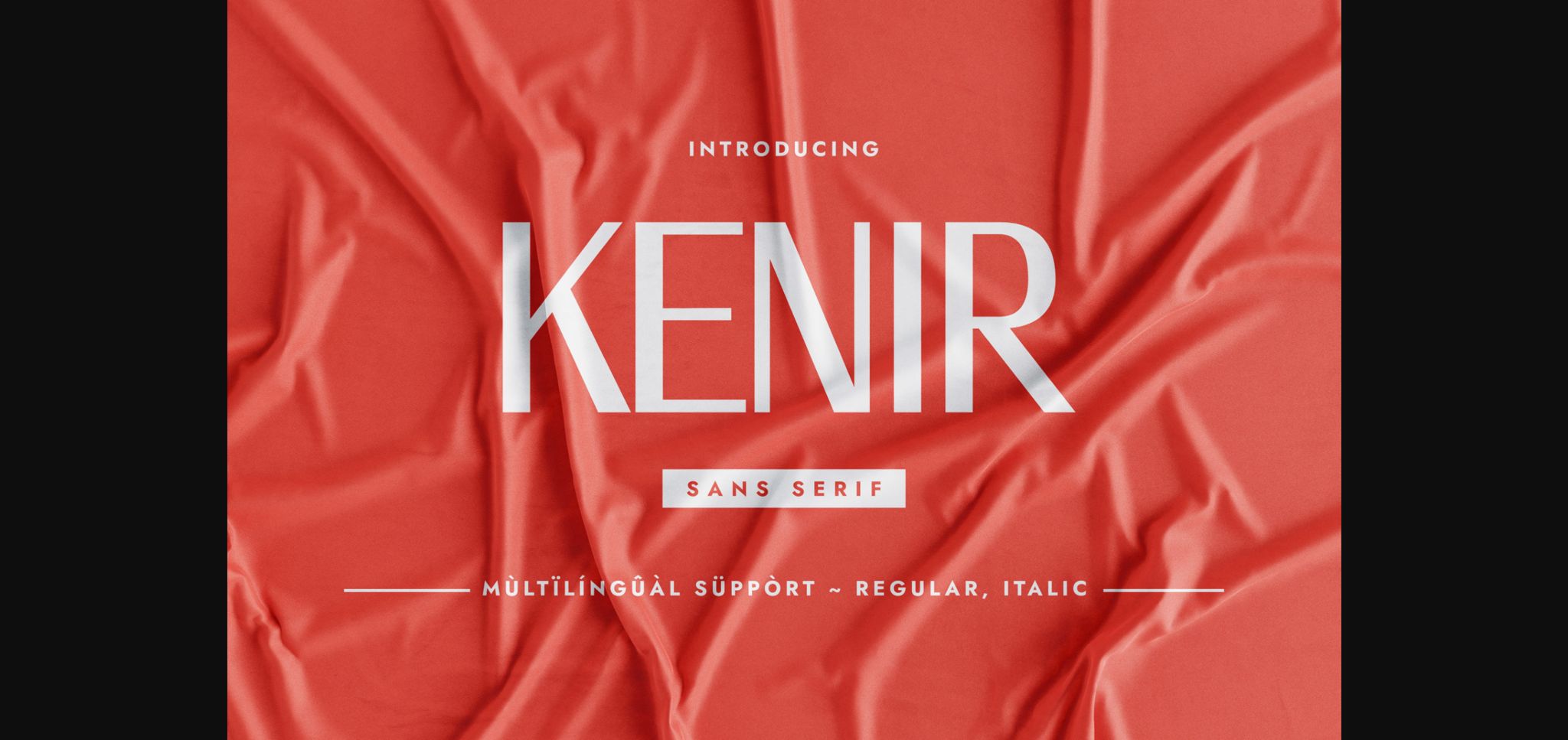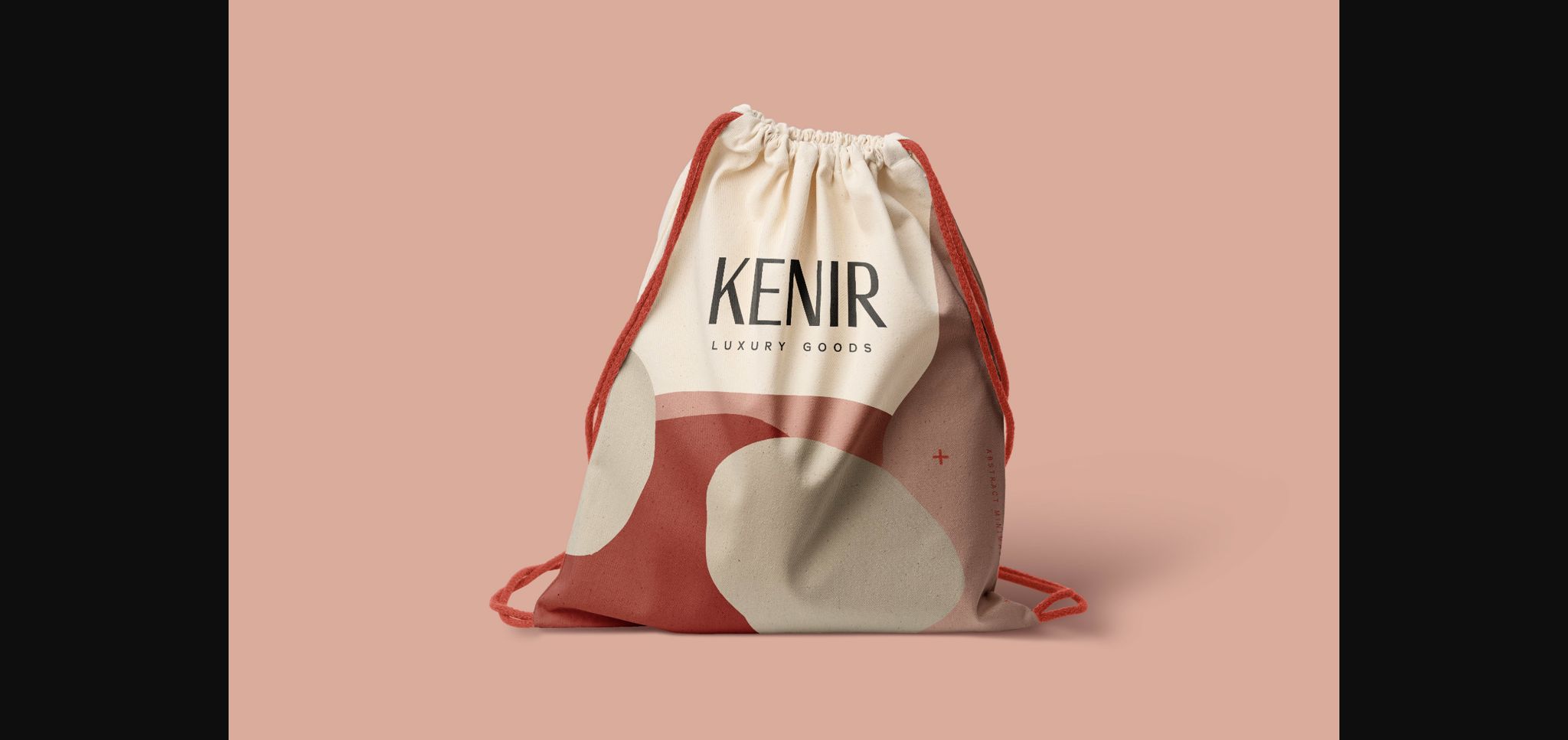
About Kenir Font
Kenir is a delicate, minimalistic, and elegant sans serif typeface. It is an incredibly versatile font and for that reason, it can perfectly suit a lot of contexts such as packaging design, cosmetics, business cards, invitations, weddings, social posts, etc.